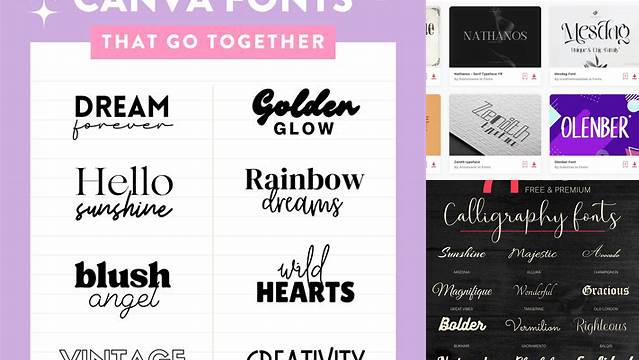
Lettering Fonts: Your Guide To Dafont's Best Picks
Hey guys! Ever scrolled through Dafont, totally overwhelmed by the sheer amount of lettering fonts? You're not alone! Finding the perfect lettering font for your project can feel like searching for a needle in a haystack, but don't worry, we've got you covered. This guide dives deep into the world of lettering fonts on Dafont, helping you understand the different styles, how to use them, and where to find the absolute best ones. Whether you're designing a logo, crafting invitations, or just adding some flair to your personal projects, choosing the right font is key. So, let's explore the awesome collection of lettering fonts Dafont has to offer and unlock your creative potential! We'll break it all down, from understanding the basics of lettering to navigating Dafont's extensive library. Get ready to find the perfect font to make your designs truly shine!
1. Understanding the Basics of Lettering Fonts
Before we jump into Dafont's massive selection, let's get clear on what we mean by "lettering fonts." Unlike standard typefaces designed for long blocks of text, lettering fonts are more about creating visually striking headlines, logos, and short-form text. These fonts often have a more artistic, hand-drawn feel, mimicking calligraphy, brushstrokes, or even graffiti. Understanding the nuances of different lettering styles will help you choose the right font for your project’s mood and message. When you think of lettering fonts, imagine the kinds of typefaces you'd see on movie posters, vintage signs, or even comic books. They're all about making a statement and grabbing attention! The key is to consider the overall aesthetic you're going for and how the font will contribute to that. Think about whether you want something elegant and flowing, bold and impactful, or playful and whimsical. Knowing these basics will make your Dafont search much more focused and effective.
2. Exploring Different Styles of Lettering Fonts
The world of lettering fonts is incredibly diverse! You'll find everything from elegant scripts to bold block letters, and everything in between. Think about calligraphy-inspired fonts with flowing strokes, or vintage-style fonts reminiscent of old advertisements. There are also playful, hand-drawn fonts that are perfect for more casual projects. Knowing the different styles will help you narrow down your search on Dafont. For example, if you're designing a wedding invitation, you might want a classic calligraphy or script font. On the other hand, if you're creating a poster for a rock concert, you'll probably want something bold and edgy. Consider the feeling you want to evoke with your design. Does it need to be formal and sophisticated, or fun and energetic? This will guide you towards the right style of lettering font. Don't be afraid to experiment with different styles to see what works best for your project!
3. Navigating Dafont: A Step-by-Step Guide
5. Top 10 Calligraphy Lettering Fonts on Dafont
Calligraphy fonts add a touch of elegance and sophistication to any project. Dafont has a fantastic selection! Some popular options include Great Vibes, Allura, and Alex Brush. These fonts are perfect for invitations, logos, and anything that needs a classic, handwritten feel. Explore fonts like these, experimenting with different combinations to find the perfect match for your creative vision. Calligraphy fonts can be incredibly versatile, ranging from delicate and refined to bold and expressive. Consider the weight and style of the font – a lighter, more flowing script might be ideal for a wedding invitation, while a bolder calligraphy font could be perfect for a headline.
6. Best Script Lettering Fonts for Elegant Designs
Script fonts are similar to calligraphy fonts but often have a more modern and fluid feel. Think of fonts like Pacifico, Lobster, and Dancing Script. These fonts are great for adding a touch of personality and charm to your designs. They work well for websites, branding, and even social media graphics. Script fonts come in a huge range of styles, from formal and elegant to playful and whimsical. Finding the right script font can really elevate your design and give it a unique character. Try pairing a script font with a simpler sans-serif font for a balanced and visually appealing look.
7. Bold and Impactful Display Lettering Fonts
Need a font that makes a statement? Display fonts are your answer! These fonts are designed to grab attention and are perfect for headlines, posters, and logos. Look for fonts with thick strokes, unique shapes, and lots of personality. Examples include Bebas Neue, Montserrat, and Impact (though Impact isn't on Dafont, it's a good example of the style!). When choosing a display font, consider the overall message you want to convey. A bold, geometric font can project a sense of modernity and strength, while a vintage-inspired display font can evoke nostalgia and charm.
8. Vintage and Retro Lettering Fonts on Dafont
Vintage and retro fonts are all the rage! They evoke a sense of nostalgia and can add a cool, timeless feel to your designs. Dafont has a fantastic collection of these fonts, ranging from Art Deco-inspired designs to groovy 70s styles. Think about fonts like Playfair Display (for a touch of elegance) or Franchise (for a more industrial, retro vibe). These fonts are great for branding, posters, and anything that needs a vintage twist. When using vintage fonts, consider the color palette and overall design aesthetic to create a cohesive and authentic look.
9. Hand-Drawn and Brush Lettering Fonts
Hand-drawn and brush lettering fonts bring a personal and artistic touch to your projects. These fonts mimic the look of actual handwriting or brushstrokes, giving your designs a unique and organic feel. Dafont offers many options, from playful and casual to elegant and refined. These fonts are perfect for logos, invitations, and anything that needs a human touch. Experiment with different weights and styles of hand-drawn fonts to find the perfect one for your project. Consider the texture and flow of the font – a rough, textured brush font can add a sense of energy, while a smooth, flowing hand-drawn font can convey a sense of elegance and grace.
10. Gothic and Blackletter Lettering Fonts
Gothic and blackletter fonts are characterized by their dramatic, ornate letterforms. They're often associated with medieval times and can add a sense of history and formality to your designs. While not for every project, they can be incredibly effective in the right context. Dafont has a selection of these fonts, perfect for certificates, invitations, or anything that needs a touch of drama. Think of fonts that are bold, dramatic, and visually striking. Gothic fonts can be particularly effective for creating a sense of mystery or grandeur.
11. Decorative Lettering Fonts for Unique Designs
Decorative fonts are all about adding flair and personality to your designs. They often feature unique shapes, embellishments, and playful details. These fonts are perfect for headlines, posters, and anything that needs to stand out. Dafont has a wide variety of decorative fonts, from whimsical and cartoonish to elegant and sophisticated. Consider the overall mood and style of your project when choosing a decorative font. A playful, cartoonish font might be perfect for a children's book, while an elegant, embellished font could be ideal for a wedding invitation.
12. Sans-Serif Lettering Fonts: Clean and Modern Choices
Sans-serif fonts are known for their clean lines and modern aesthetic. They lack the small decorative strokes (serifs) found in other font styles. While often used for body text, sans-serif fonts can also be great for headlines and logos, especially when you want a sleek and minimalist look. Look for sans-serif fonts on Dafont with varying weights and styles to find the perfect fit for your project. Consider the legibility of the font, especially if you're using it for longer blocks of text. A well-chosen sans-serif font can project a sense of professionalism and modernity.
13. Serif Lettering Fonts: Classic and Traditional Styles
Serif fonts, with their small decorative strokes, evoke a sense of tradition and elegance. They're often used in books and newspapers, but they can also be fantastic for headlines and logos. Dafont offers a great selection of serif fonts, from classic styles like Times New Roman (though not on Dafont, it's a good example) to more modern interpretations. When using serif fonts, pay attention to the spacing between letters and lines to ensure readability. A well-chosen serif font can add a touch of sophistication and authority to your design.
14. Using Lettering Fonts for Logos: Best Practices
Choosing the right font for your logo is crucial! Your logo is the face of your brand, and the font plays a huge role in conveying your message. Consider your brand's personality and choose a font that reflects it. A playful brand might opt for a hand-drawn font, while a sophisticated brand might choose a classic serif font. Make sure the font is legible at different sizes and in different contexts. Simplicity is often key when it comes to logo design. Avoid overly decorative fonts that can be difficult to read or reproduce.
15. Lettering Fonts for Website Design: Readability Matters
When choosing fonts for your website, readability is paramount. While a fancy lettering font might look great in your logo, it might not be the best choice for body text. Stick to clear and legible fonts for the main content of your website. You can use a more decorative lettering font for headlines and headings, but make sure it's still easy to read. Consider the overall design aesthetic of your website and choose fonts that complement it. Test your fonts on different devices and screen sizes to ensure they look good across the board.
16. Lettering Fonts in Print Design: Creating Visual Impact
Print design offers a lot of opportunities to get creative with fonts! Whether you're designing a poster, brochure, or invitation, the right font can make a big impact. Consider the size and format of your print piece when choosing a font. A large poster can handle a bolder, more decorative font, while a small brochure might require a simpler, more legible font. Pay attention to the color and contrast of your fonts against the background. Test your designs in print to ensure they look as good in real life as they do on your screen.
17. Pairing Lettering Fonts: Tips and Techniques
Paring fonts well is an art! Combining different lettering styles can create visual interest and hierarchy, but it can also be tricky. A general rule of thumb is to pair a decorative font with a simpler font. For example, you could pair a script font with a sans-serif font. Avoid pairing two fonts that are too similar, as this can look visually jarring. Consider the contrast in weight and style between the fonts. Experiment with different pairings until you find a combination that works well for your project.
18. Kerning and Leading: Fine-Tuning Your Lettering
Kerning and leading are essential aspects of typography that can significantly impact the readability and visual appeal of your lettering. Kerning refers to the spacing between individual letters, while leading refers to the spacing between lines of text. Adjusting these settings can help you create a more polished and professional look. Pay attention to the overall rhythm and flow of your text. Inconsistent kerning can make your text look uneven and unprofessional. Experiment with different leading settings to find the optimal spacing for your font and layout.
19. Color and Lettering: Creating Harmonious Designs
Color plays a crucial role in the overall impact of your lettering. The colors you choose can influence the mood and message of your design. Consider the contrast between your font color and the background color. High contrast can improve readability, while low contrast can create a more subtle and elegant look. Think about the emotional associations of different colors. For example, blue often conveys a sense of trust and stability, while red conveys energy and passion. Experiment with different color palettes to find the perfect combination for your lettering.
20. Adding Effects to Lettering Fonts: Shadows and Outlines
Adding effects like shadows and outlines can enhance the visual impact of your lettering fonts. These effects can make your text stand out and create a sense of depth. However, it's important to use these effects sparingly and appropriately. Too many effects can make your lettering look cluttered and unprofessional. Consider the overall style and mood of your design when adding effects. A subtle shadow can add dimension, while a bold outline can create a more graphic and impactful look. Experiment with different effects and settings to find the perfect balance for your project.
21. Lettering Fonts for Social Media Graphics
Social media graphics need to be eye-catching and engaging. Choosing the right lettering font can help your graphics stand out in a crowded feed. Consider the platform you're designing for. A font that looks great on Instagram might not work as well on Twitter. Use fonts that are legible at small sizes, as many people will be viewing your graphics on their mobile devices. Pay attention to the overall tone and style of your brand when choosing fonts for social media. Consistency is key to building brand recognition.
22. Lettering Fonts for Invitations and Cards
Invitations and cards are a great opportunity to use elegant and decorative lettering fonts. Whether you're designing a wedding invitation or a birthday card, the right font can set the tone for the occasion. Consider the formality of the event when choosing a font. A formal event might call for a classic calligraphy or script font, while a more casual event might be better suited to a hand-drawn or playful font. Pay attention to the readability of your font, especially for important details like the date and time. Experiment with different font pairings and layouts to create a unique and memorable design.
23. Lettering Fonts in Packaging Design
Packaging design is all about grabbing the customer's attention. The fonts you use on your packaging can play a big role in conveying your brand's message and attracting customers. Consider your target audience when choosing a font. A product marketed to a younger demographic might benefit from a bold and modern font, while a product targeted at a more mature audience might be better suited to a classic serif font. Ensure that your font is legible on the packaging and that it stands out from the background. Think about the overall aesthetic of your packaging and choose fonts that complement it.
24. Licensing and Usage Rights on Dafont
We touched on this earlier, but it's worth repeating: understanding font licenses is essential! Dafont offers a mix of free and commercial fonts, each with its own set of usage rights. Always check the license information before using a font, especially for commercial projects. The license will typically specify whether you can use the font for personal use, commercial use, or both. It may also outline any restrictions on modification or redistribution. Ignoring font licenses can lead to legal trouble, so it's always best to err on the side of caution.
25. Tips for Choosing the Right Lettering Font for Your Project
Choosing the right font can feel overwhelming, but here are some tips to help you make the best decision: Start by considering the overall mood and message of your project. What feeling do you want to evoke? Think about your target audience. What fonts will resonate with them? Consider the context in which the font will be used. Is it for a logo, a website, or a print design? Pay attention to readability. A beautiful font is useless if it's hard to read. Don't be afraid to experiment with different fonts and font pairings. Trust your gut and choose the font that feels right for your project.
26. Common Mistakes to Avoid When Using Lettering Fonts
There are some common pitfalls to watch out for when using lettering fonts. One of the biggest mistakes is using too many fonts in a single design. This can create a cluttered and unprofessional look. Avoid overly decorative fonts that are difficult to read. Pay attention to kerning and leading. Poor spacing can ruin even the most beautiful font. Don't ignore font licenses. Always check the usage rights before using a font, especially for commercial projects. Be consistent with your font choices across all of your designs.
27. Exploring Font Alternatives on Dafont
Sometimes, the perfect font just doesn't exist. But that's okay! Dafont has so many options, you're bound to find something that works. If you're struggling to find the right font, try searching for alternatives. Use keywords related to the style you're looking for, like "vintage," "calligraphy," or "handwritten." Browse through different categories on Dafont. Experiment with font pairings. You might find a combination that's even better than your original idea. Don't be afraid to think outside the box and try something new!
28. The Future of Lettering Fonts: Trends and Innovations
The world of lettering fonts is constantly evolving. New trends and innovations are emerging all the time. Keep an eye out for variable fonts, which allow you to customize font weights and styles in a more flexible way. Hand-drawn and brush lettering fonts continue to be popular, as they add a personal and artistic touch to designs. Geometric and minimalist fonts are also trending, reflecting the growing popularity of clean and modern design aesthetics. Stay inspired and don't be afraid to try new things!
29. Resources for Learning More About Typography
Want to level up your typography skills? There are tons of resources available online and in print. Websites like Typewolf and Fonts in Use are great for discovering new fonts and seeing how they're used in real-world designs. Books like "The Elements of Typographic Style" by Robert Bringhurst are considered classics in the field of typography. Online courses and tutorials can provide a structured learning experience. Don't be afraid to dive deep into the world of typography and expand your knowledge!
30. Dafont Lettering Fonts: Final Thoughts and Inspiration